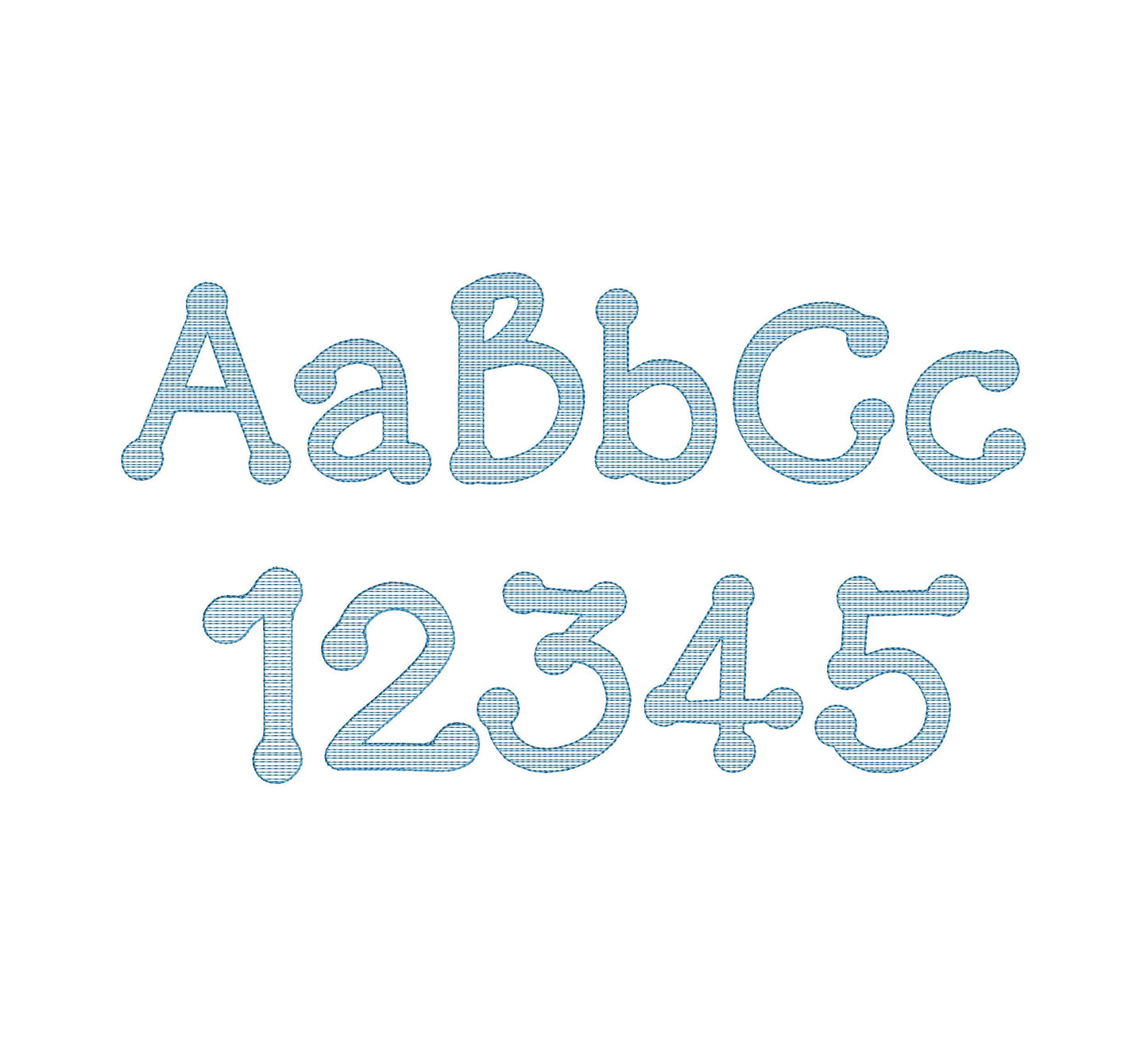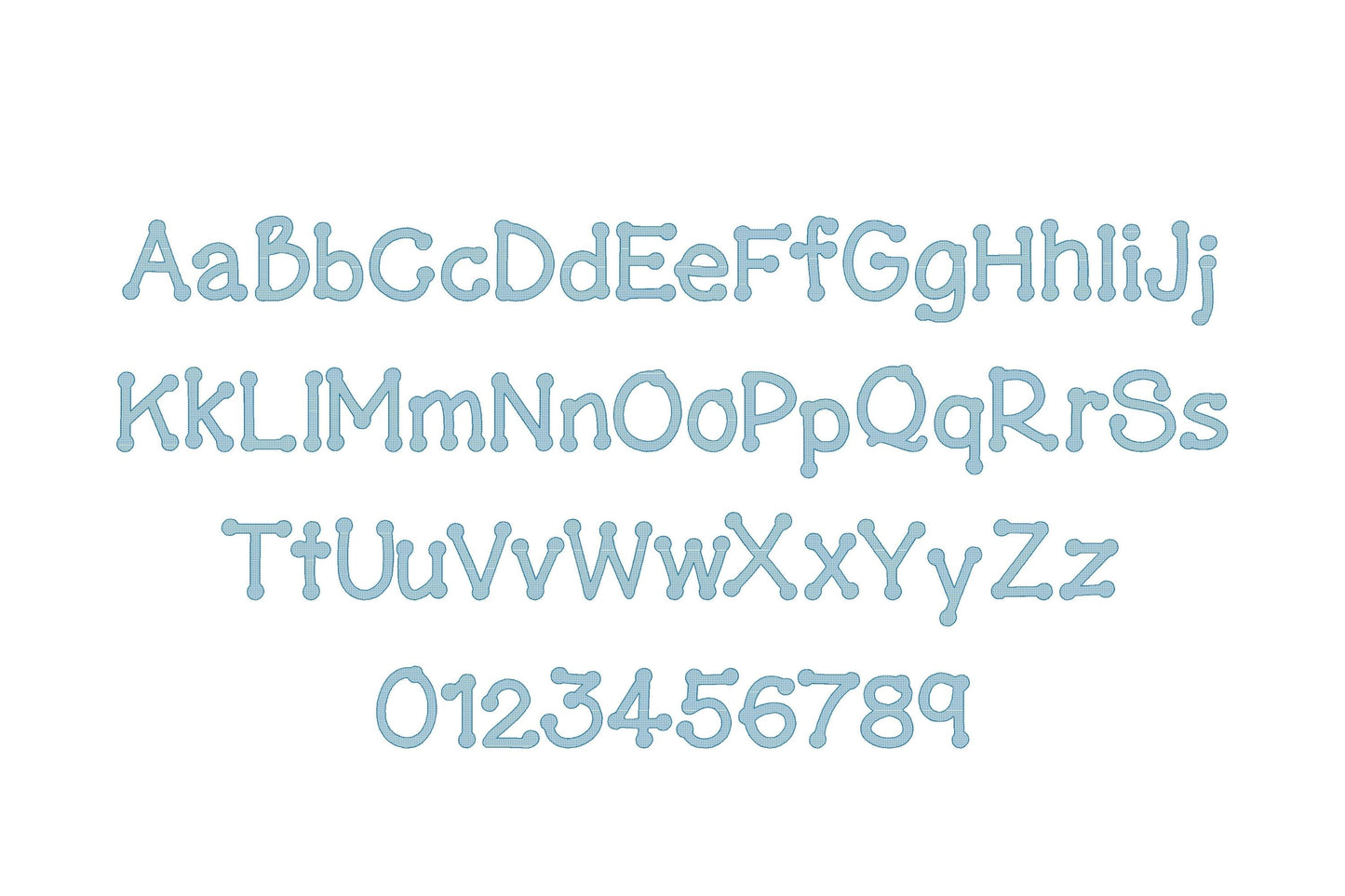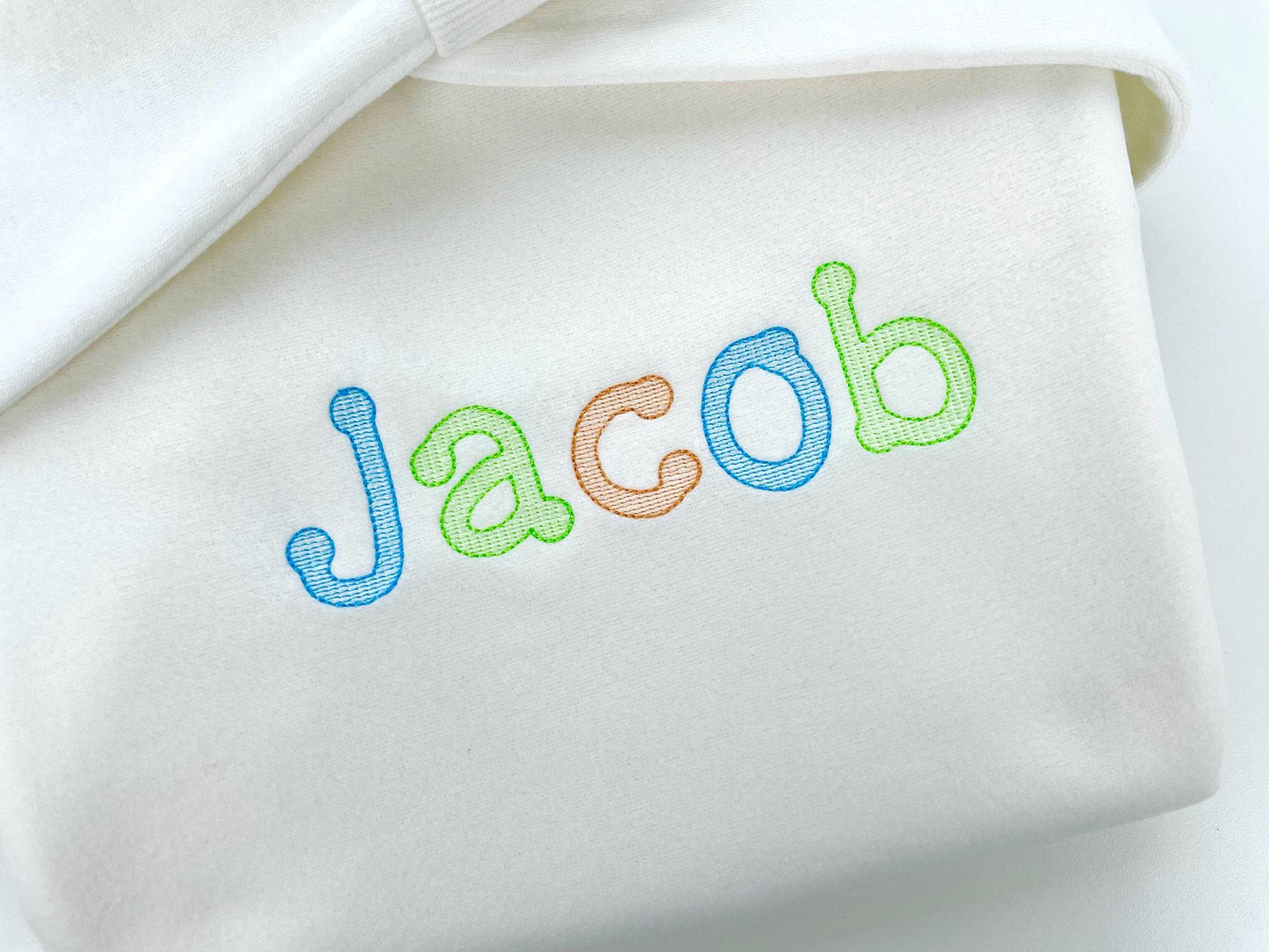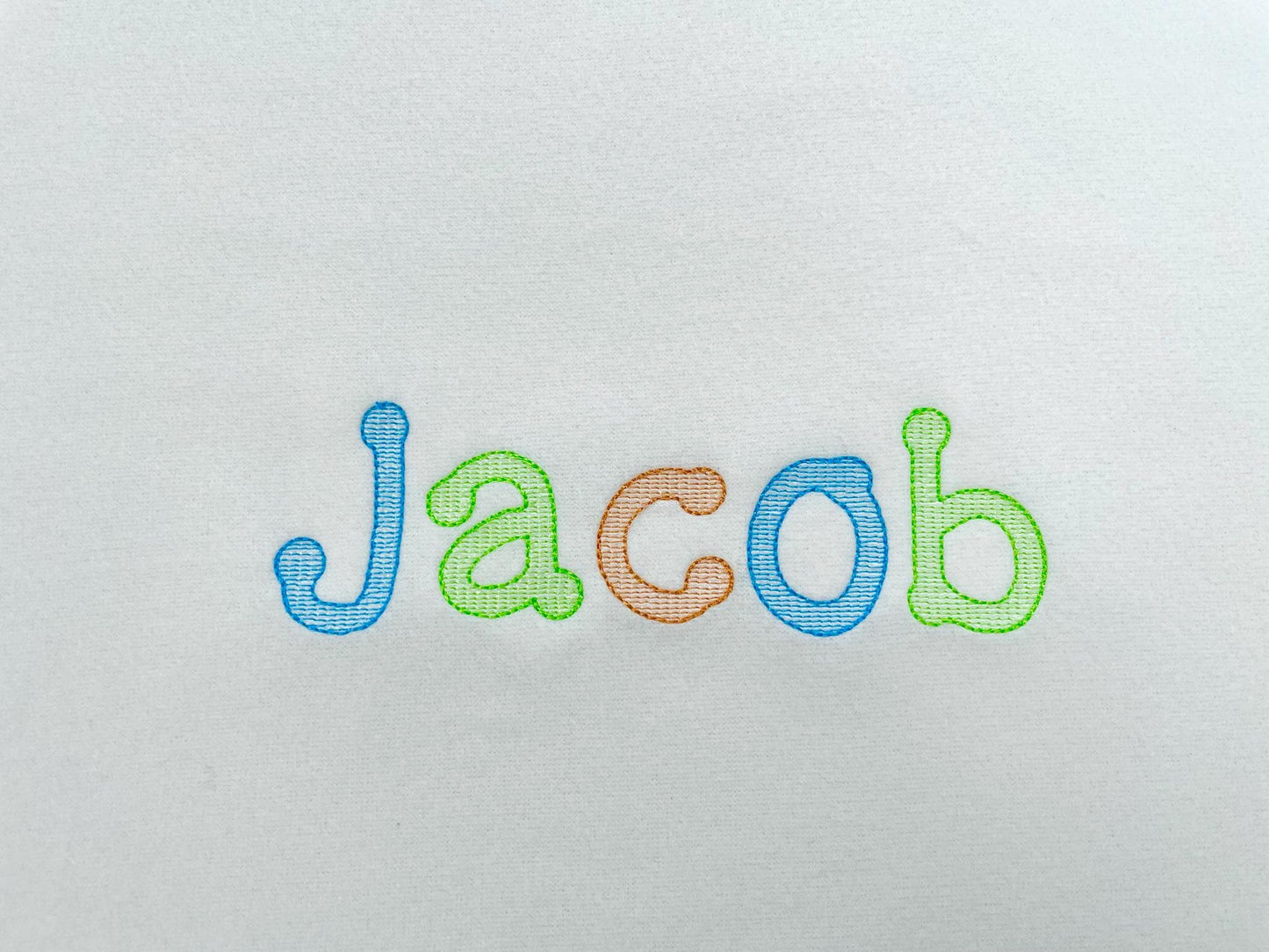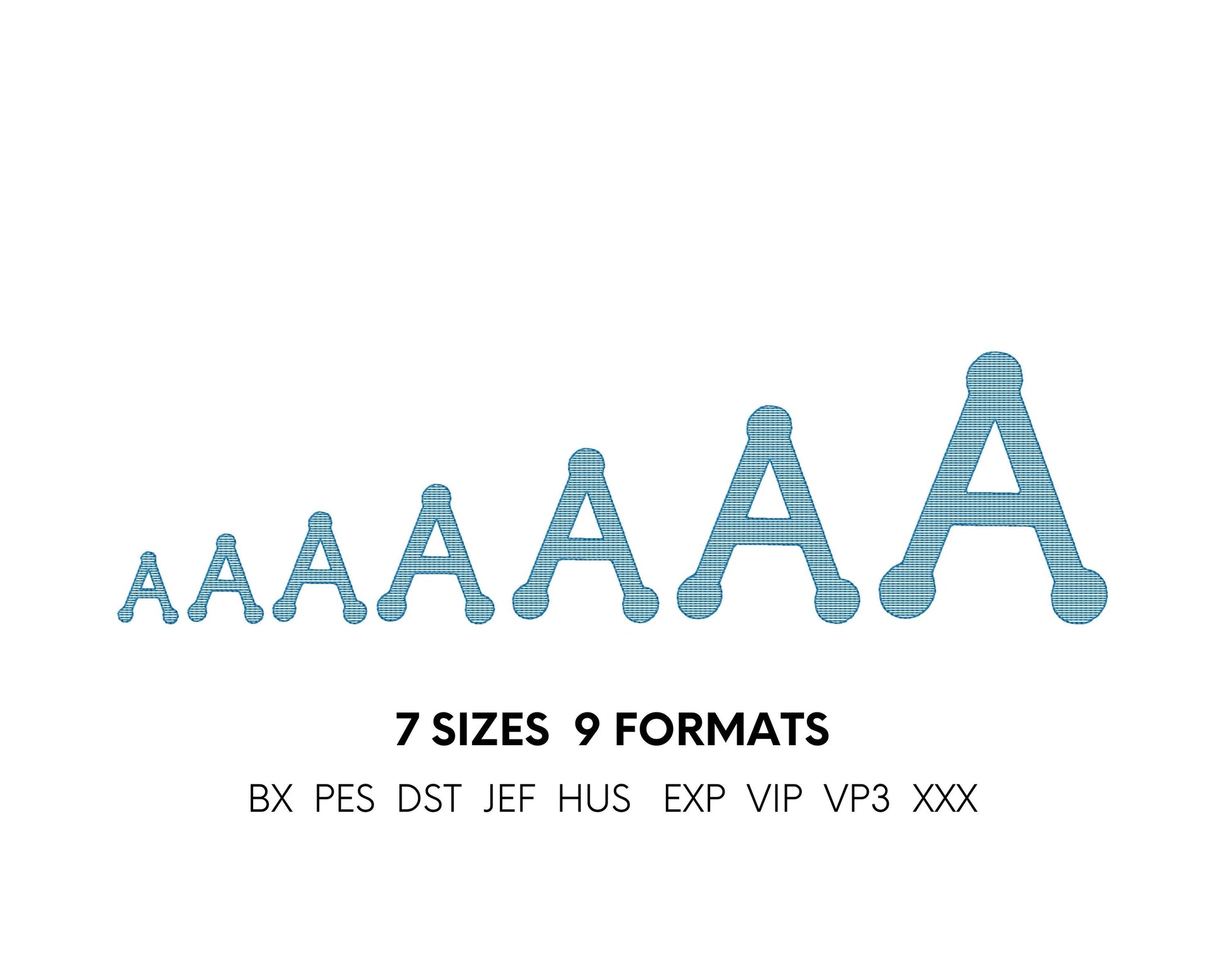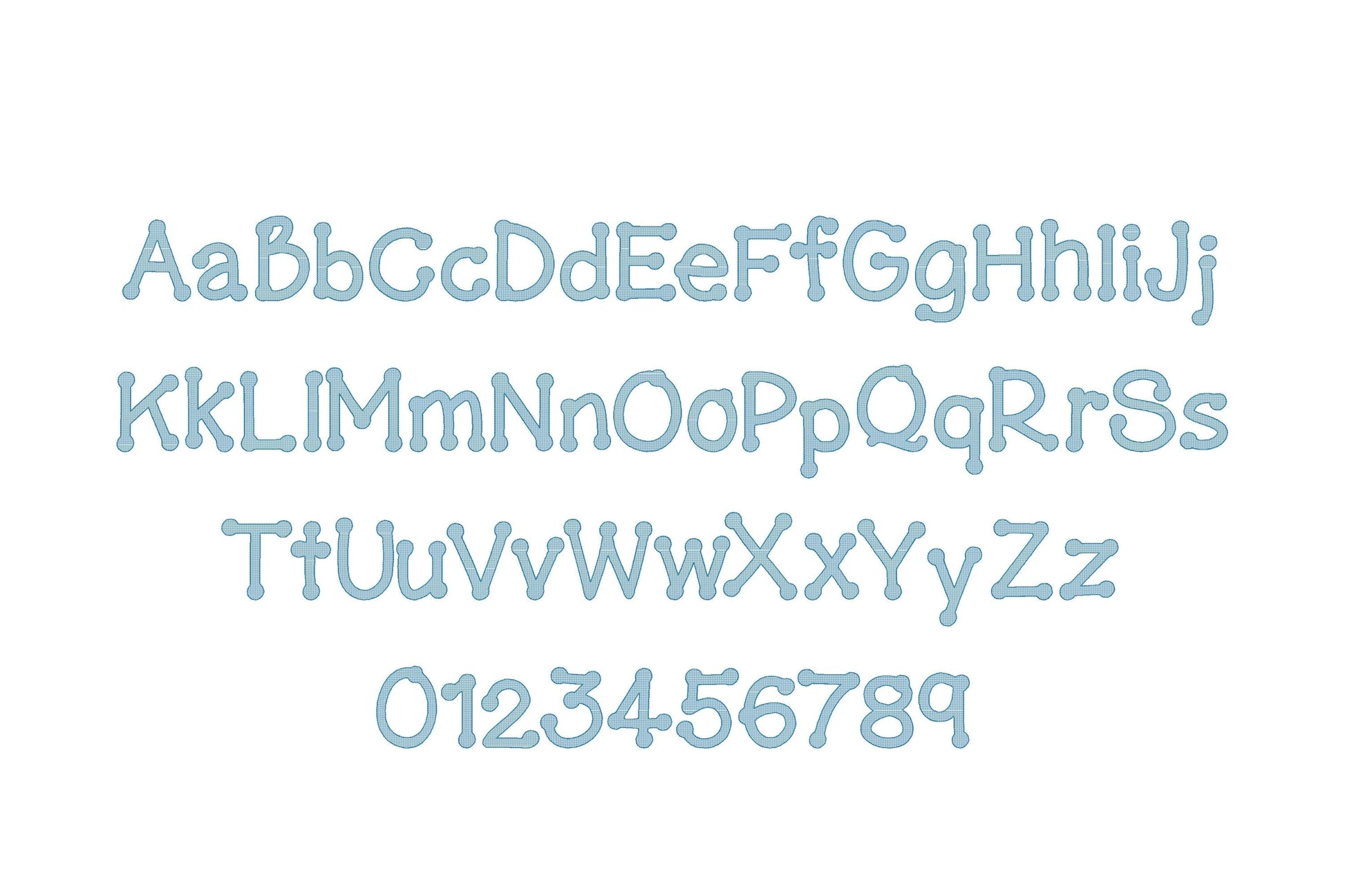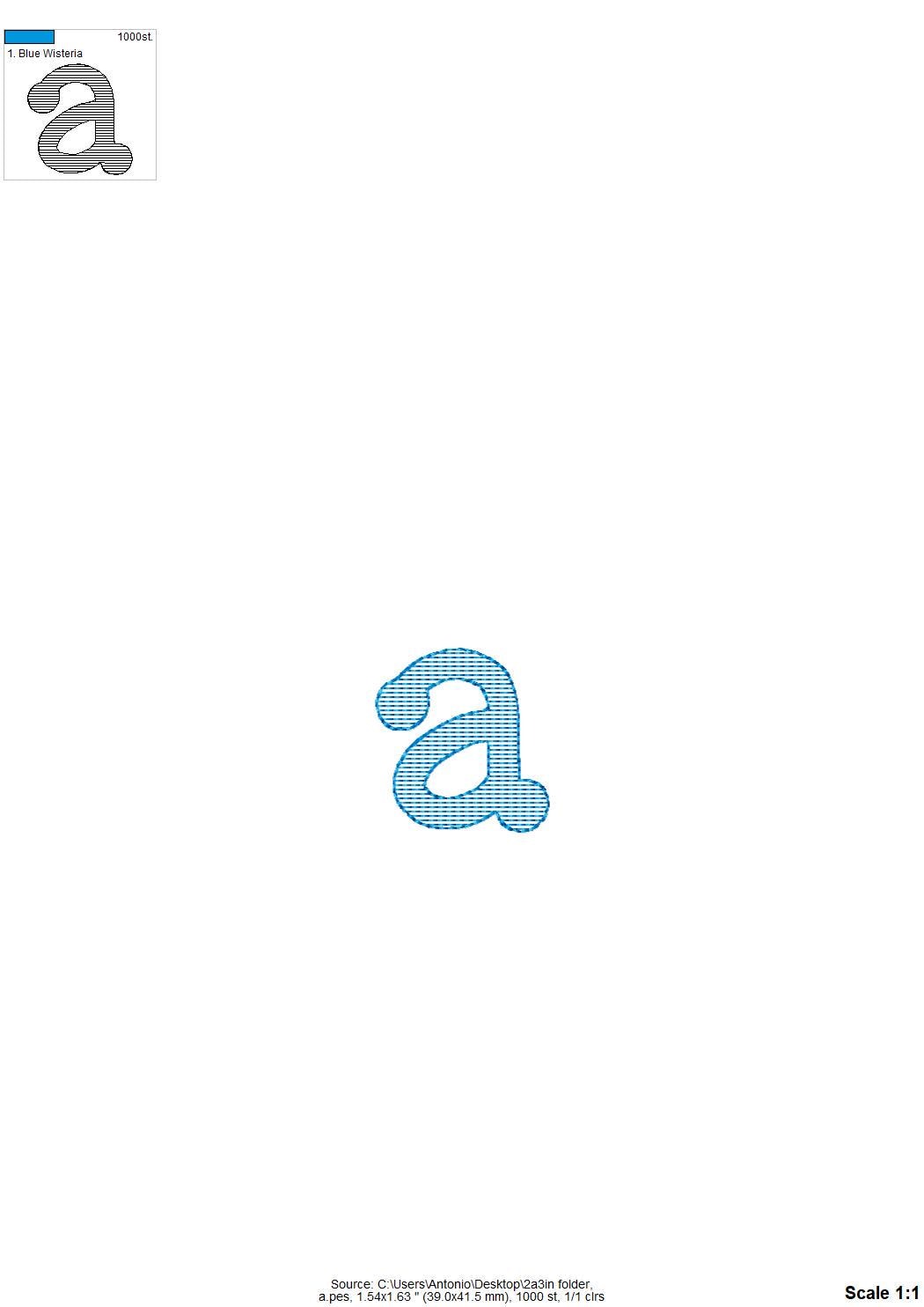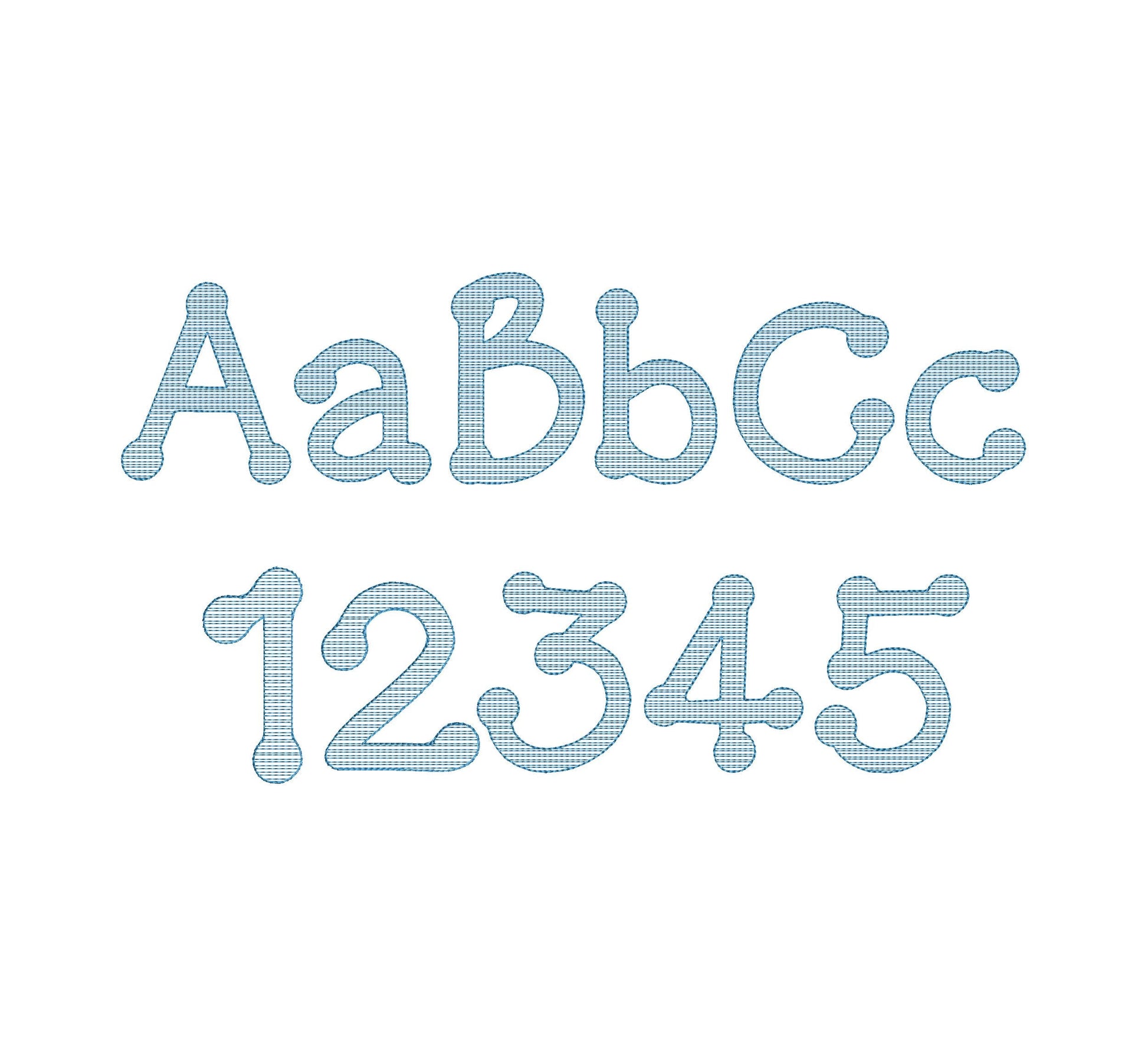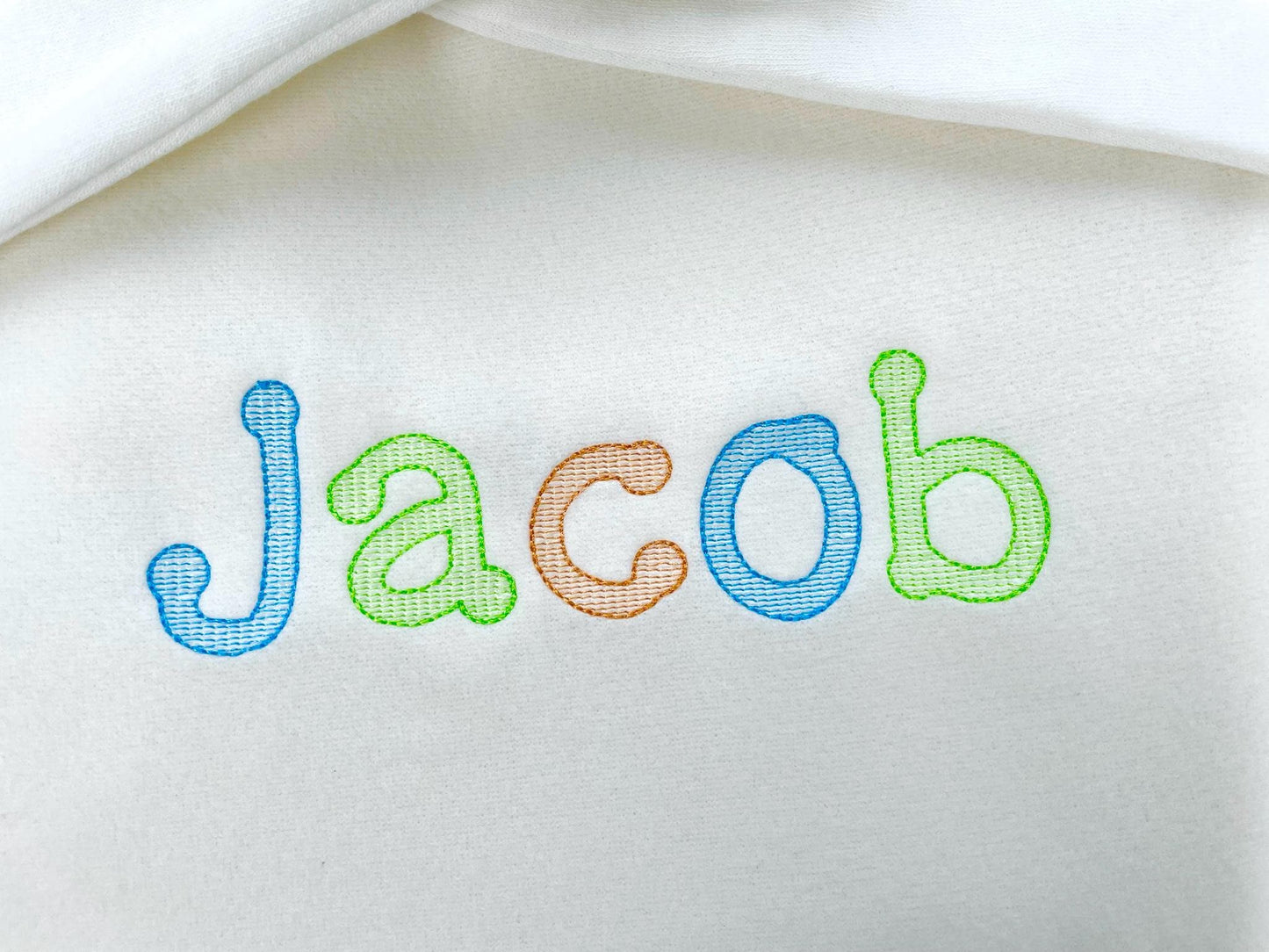
Or click to open the linkA quick dot-to-dot style kids' font with a light fill and bean stitch outline, best on white or light fabrics. Fun for school shirts and names.
Uppercase and lowercase letters and numbers 0 to 9 in seven sizes: 1.2, 1.5, 1.8, 2.3, 3, 3.5 and 4.4 inches. The low-density fill lets the fabric show through.